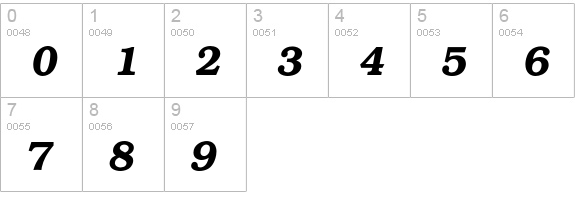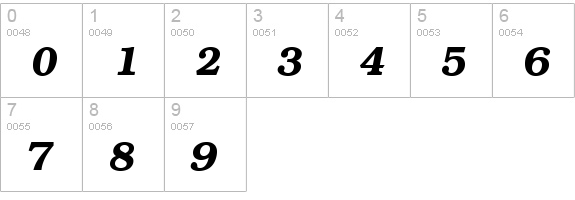
Bookman* Demibold Italic Font Details
Bookman* Demibold Italic is a sub-bold, structured, italic variant in the Bookman* typeface family \xE2\x80\x94 well suited to sub-headlines and emphasised passages.
Bookman Demibold Italic is a classic and versatile serif font that exudes elegance and sophistication. With its bold weight and slanted italics, this typeface adds a touch of modernity to traditional design projects. The strong yet graceful letterforms of Bookman Demibold Italic make it ideal for headlines, branding materials, and editorial layouts. What sets Bookman Demibold Italic apart is its seamless combination of strength and elegance, making it a timeless choice for a wide range of applications. Whether used in print or digital media, this font commands attention and conveys a sense of authority and refinement. Best of all, Bookman Demibold Italic is available for free download at FontsMarket.com. This means that you can easily access and use this high-quality font in your projects without any cost. Don't miss out on the opportunity to enhance your designs with the timeless appeal of Bookman Demibold Italic – download it today and elevate your typographic creations to new heights.